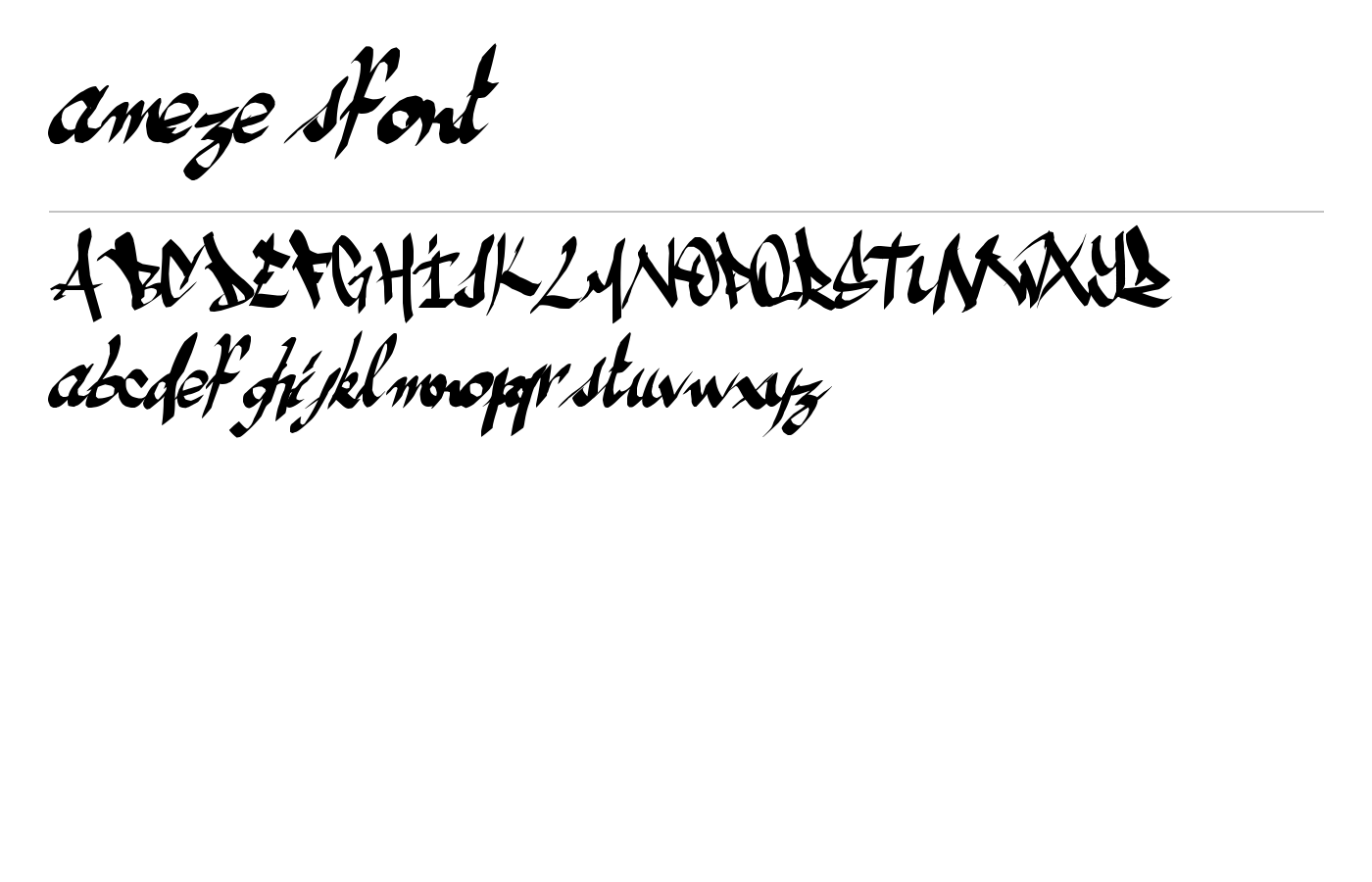
Ameze'sfont is a bold, expressive script font with a dramatic, edgy calligraphic style. Its sharp angles and thick, irregular strokes create a dynamic and energetic feel, perfect for artistic and unconventional branding or creative projects that need a strong visual impact. This font works well in headlines, logos, and posters where a powerful, rebellious personality is desired.
ameze'sfont
About ameze'sfont